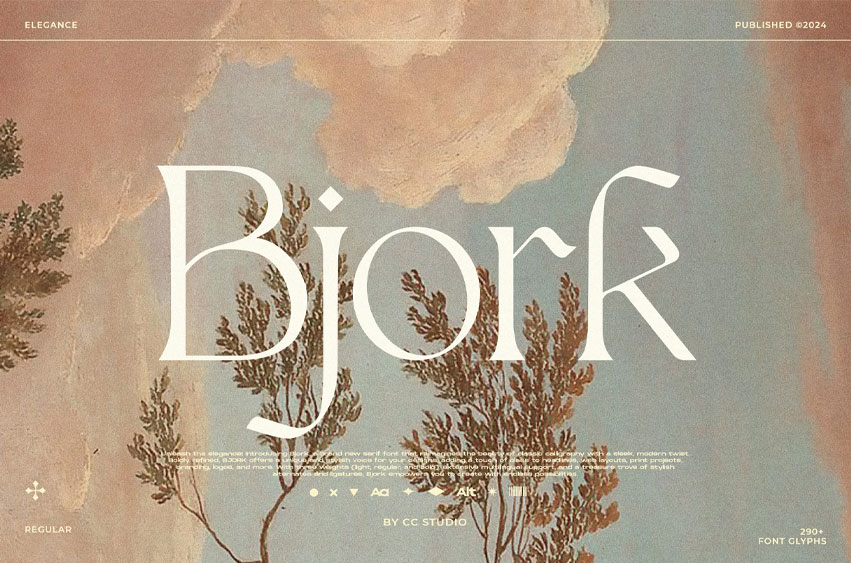
Bjork Font
Bjork Font is a brand-new serif font that reimagines the beauty of classic calligraphy with a sleek, modern twist. Boldly refined, Bjork Serif offers a unique and stylish voice for your designs, adding a touch of class to headlines, web layouts, print projects, branding, logos, and more. With extensive multilingual support and a treasure trove of stylish alternates and ligatures, Bjork empowers you to create with endless possibilities.
• Stylistic Alternates & Ligatures —